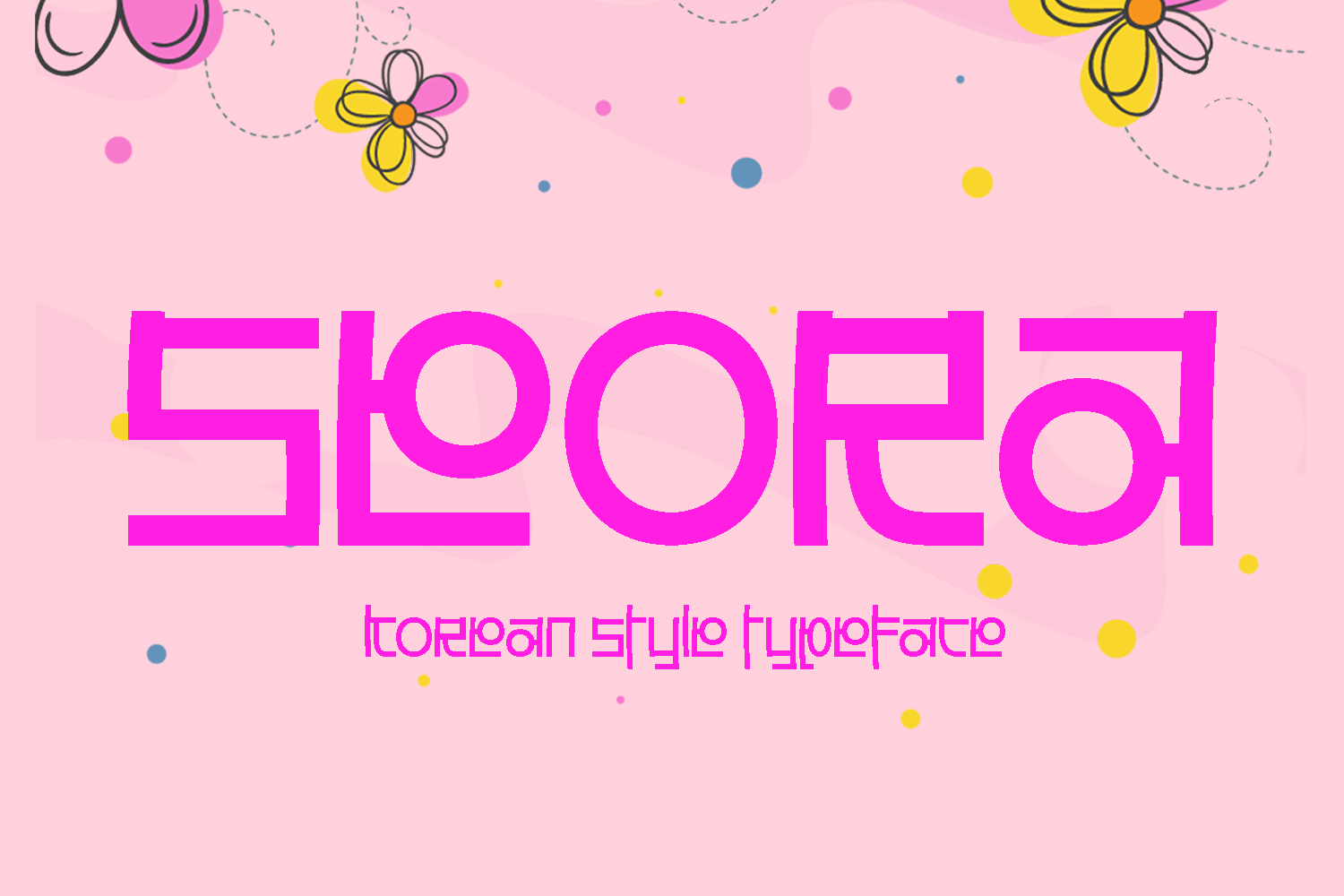
Seora - Cute Korean Style Display Font
Seora is a futuristic Korean-inspired display typeface featuring geometric modular construction, square forms, and Hangul-influenced letter architecture. The font blends cyberpunk aesthetics with contemporary Korean design language, making it ideal for gaming, esports, K-pop visuals, technology branding, and sci-fi themed projects.
This font is a futuristic geometric display typeface with strong influences from cyberpunk, techno, arcade gaming, and digital interface design. The characters are built from angular modular shapes, creating a highly stylized and technological appearance.